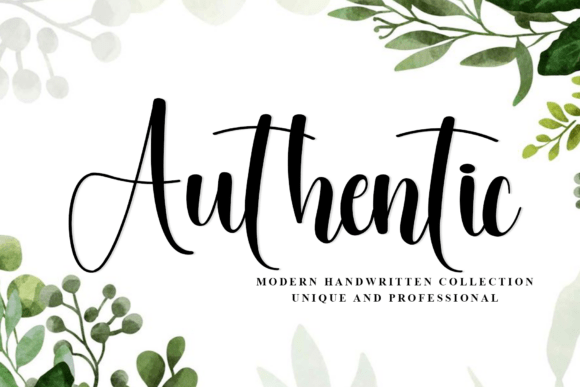
When Authenticity Speaks Through Design
There’s a moment when you stumble upon a typeface that makes you pause, and you know exactly what you want to create with it. For me, it was the first time I laid eyes on the Authentic Font. Its flowing curves and elegant strokes immediately spoke to me, and I knew I had to learn more about this beautifully crafted font.
The Authentic Font is a modern handwritten script that exudes sophistication and luxury. Its professional and unique design makes it perfect for personal branding, photography watermarks, and editorial design. For designers, this typeface is a valuable asset, offering a distinctive touch that sets projects apart from the ordinary.
With its sweeping, authentic feel, the Authentic Font is a game-changer for those seeking to add a touch of luxury to their designs.
- Unique Characteristics: Authentic Font features a unique blend of traditional and modern elements, making it ideal for designers seeking a distinctive and elegant look.
Authentic Font Review
Overall, I think the Authentic Font has some great qualities that make it a solid choice for designers. ✨
- Firstly, the Authentic Font’s unique blend of modern and traditional styles gives it a distinctive charm that’s perfect for projects that need a touch of sophistication.
- The font’s legibility is also noteworthy, ensuring that text is clear and easy to read, even at smaller font sizes.
- The font’s complexity can also make it difficult to customize and modify, which may require additional design expertise.
Overall, I’d say the Authentic Font is a great choice for designers who need a high-quality, sophisticated font for their projects. However, it’s essential to weigh the benefits against the potential limitations and consider your specific design needs before making a decision.
Tips for Getting the Most Out of Authentic Font
Here are some tips to help you get the most out of Authentic Font:
- Use Authentic Font in conjunction with high-quality images to create a cohesive look.
- Use Authentic Font to add a touch of elegance and sophistication to your designs.
Authentic Font is commonly used in:
- Business cards and
Alternatives to Authentic Font for Designers
Playfair Display is a luxurious, high-end serif font suitable for use in titles, headings, and other high-impact text elements. It’s particularly well-suited for use in branding, luxury goods, and high-end publications.
Comparison to Authentic Font: While Authentic Font has a vintage feel, Playfair Display is more elegant and sophisticated. Playfair Display is better suited for use in formal or high-end contexts, whereas Authentic Font is more versatile.
Pacifico is a beautiful, elegant script font that’s perfect for use in creative, artistic, or emotional contexts. It’s commonly used in branding, invitations, and other high-impact text elements.